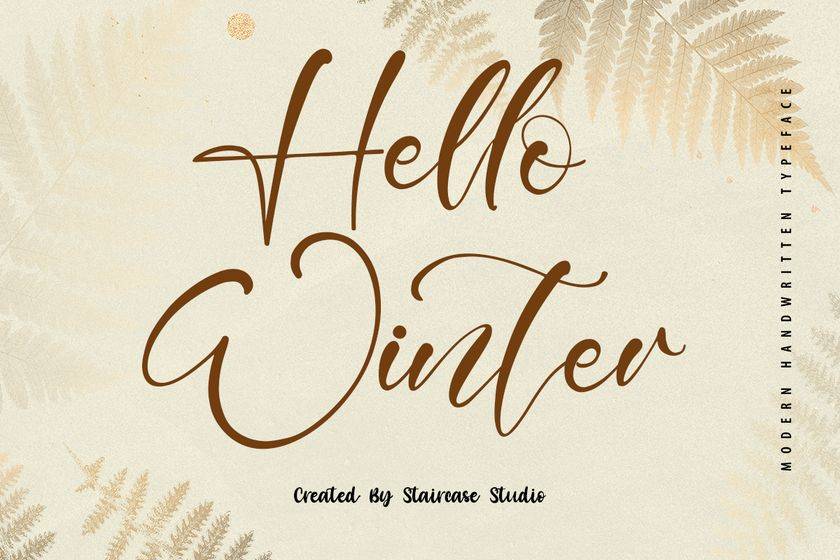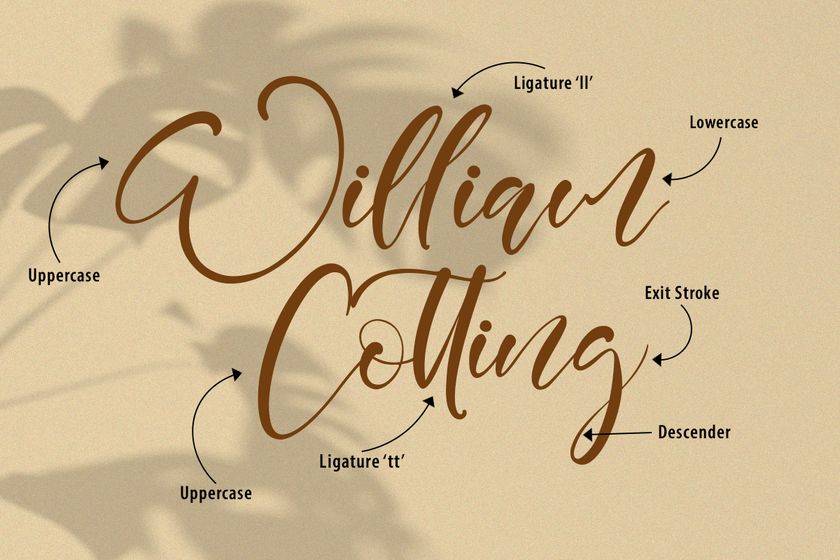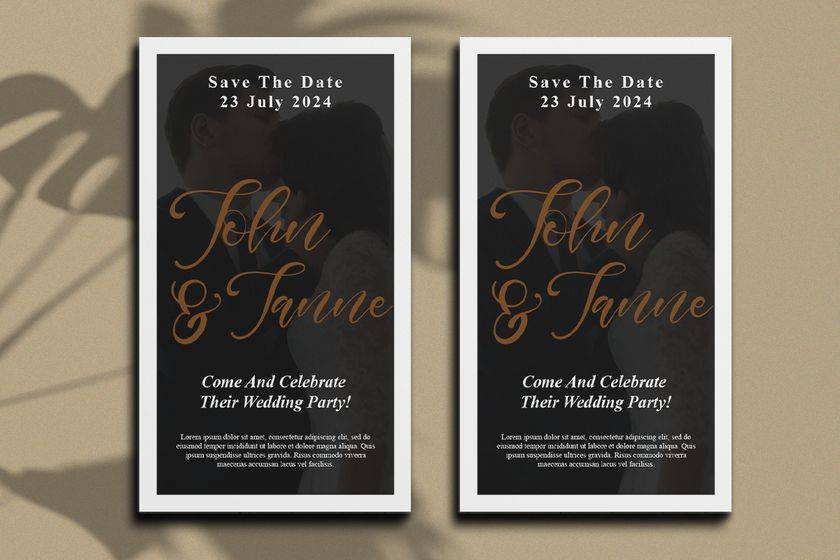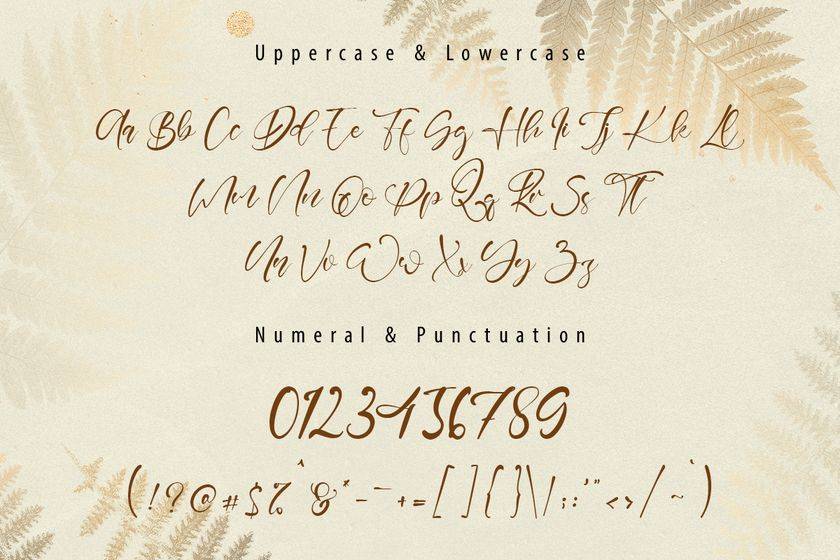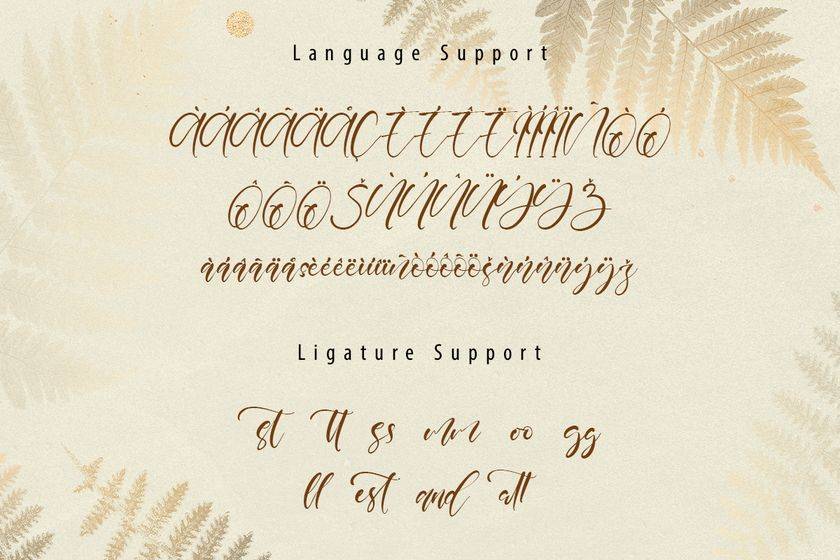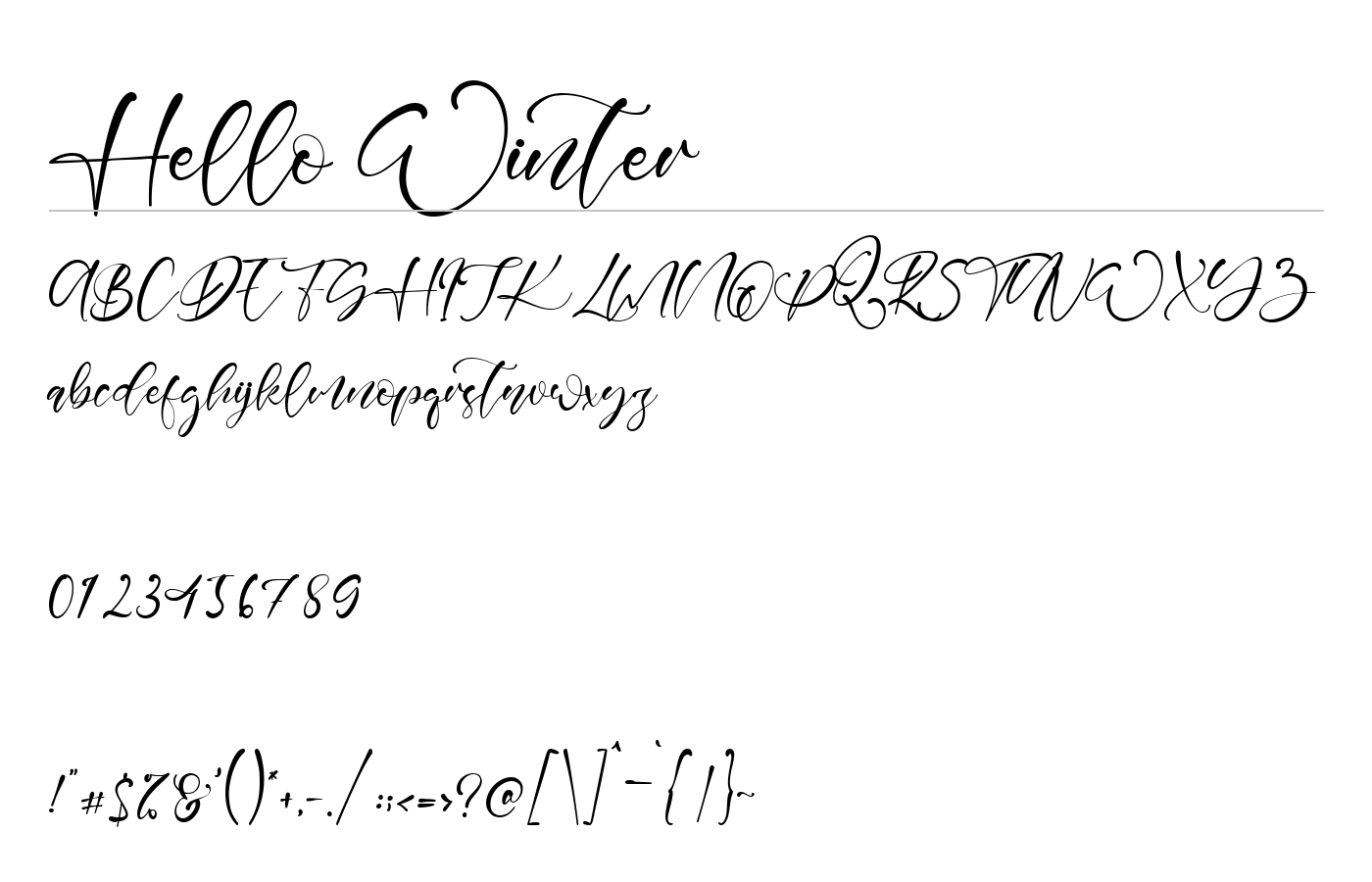
Hello Winter is an elegant script font characterized by its delicate, flowing strokes and decorative swashes that evoke a warm, personal touch. Its slender, calligraphic style with high contrast and graceful connections makes it perfect for festive, romantic, or feminine designs such as invitations, branding, and seasonal graphics. This font shines in settings that call for a sophisticated yet approachable handwritten feel.
Hello Winter Font
About Hello Winter Font